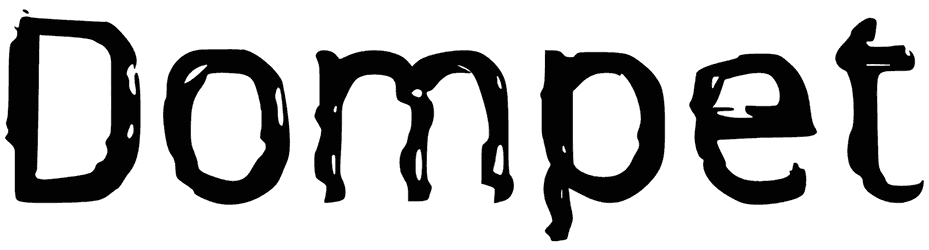
d Dompet Font
d Dompet is an eroded font with a warm and attractive personality that can create an emotional feeling in your writing. Its subtle imperfections and glossy state make it look perfect on posters, advertisements, and glass packaging.
Also, the wavy shape and the delicate decorations hidden in the heart of this fancy font have given it the power to become one of the most popular fonts in the RB library and open its place in the treasure of every discerning designer.